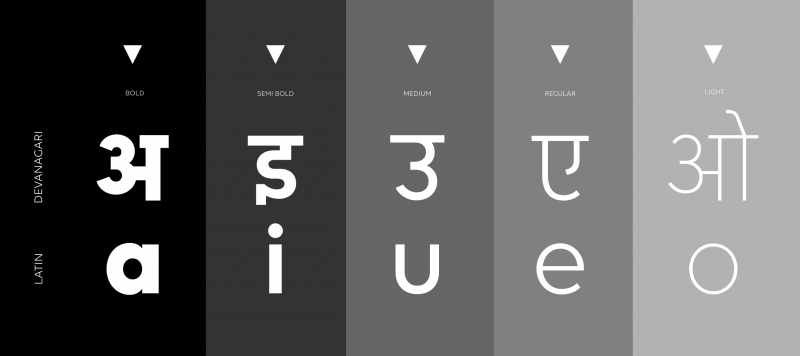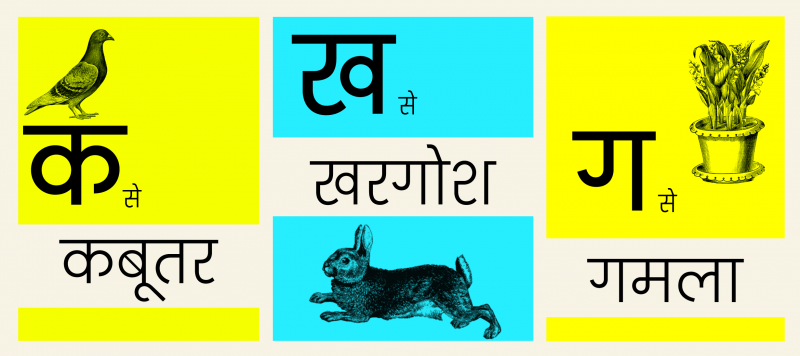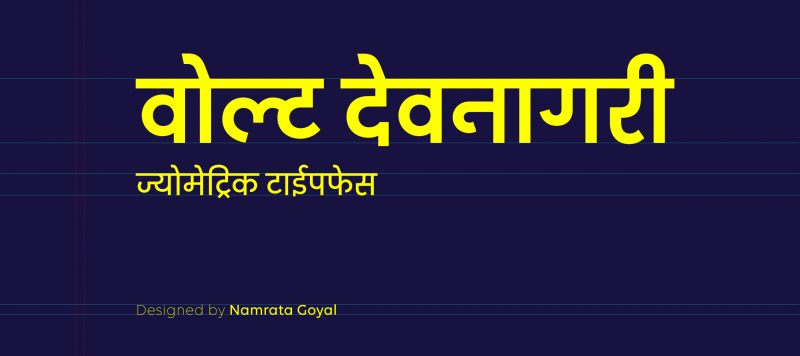
Volte Devanagari is a monolinear geometric family designed in-house at ITF by Namrata Goyal. A new voice on the Indian typographic landscape, the Volte Devanagari family offers five weights (Light–Bold), each with 750 glyphs – a streamlined character set equipped with the conjuncts and ligatures needed to render languages written in Devanagari. The typeface’s characters seem constructed out of an array of simple shapes, yet the it has a clear typographic sophistication. Wherever you look, you’ll find openness and balance.
Available Style Light, Regular, Medium, Semibold, Bold
Classification Sans, Display